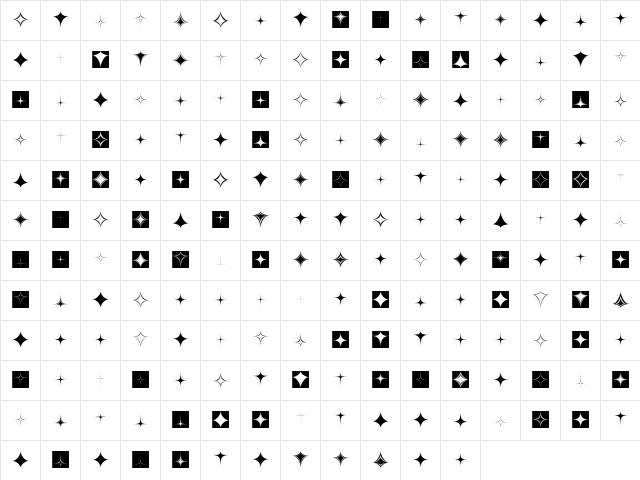
Daiyamondo Regular
Design Context for Daiyamondo Typeface
Daiyamondo is a composed and adaptable typeface that performs quietly and consistently across a wide range of design contexts.
Pro Tip: Use Daiyamondo in both headline and body roles to test its range before committing to a single application.